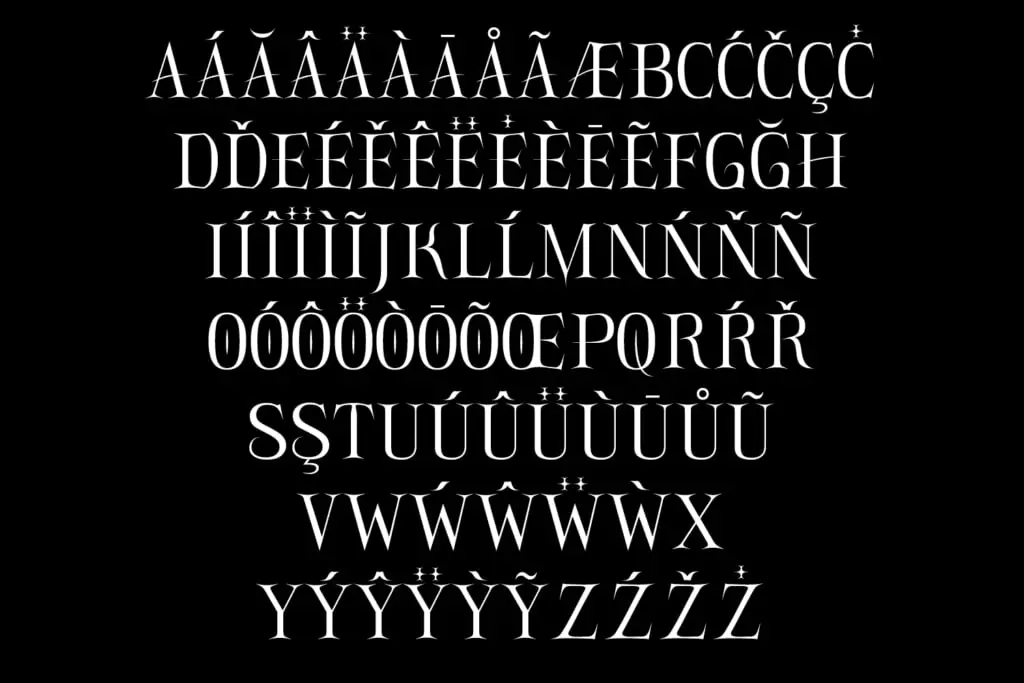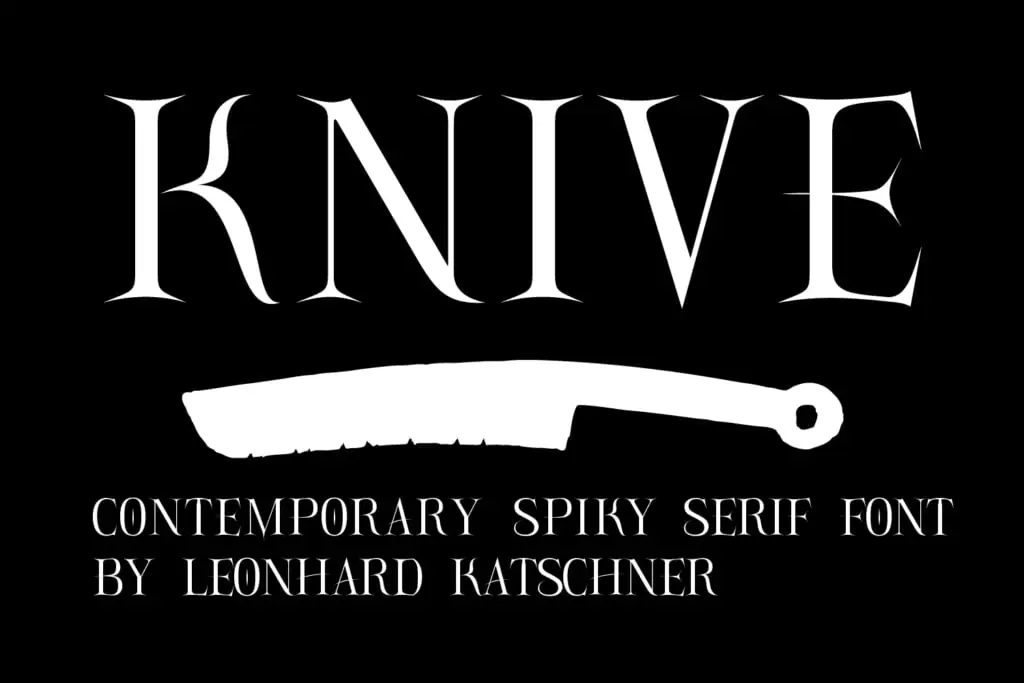
The Knive Font is a striking typeface designed to make a bold statement in any project. With its unique character shapes and sharp lines, this font is perfect for branding, logos, and eye-catching headlines.
- Stylish and modern design
- Uppercase and lowercase letters
- Numerals and punctuation included
- Weights: Regular, Bold
- Ideal for web and print applications
- Use in UI design for a contemporary look
- Perfect for promotional materials and product packaging